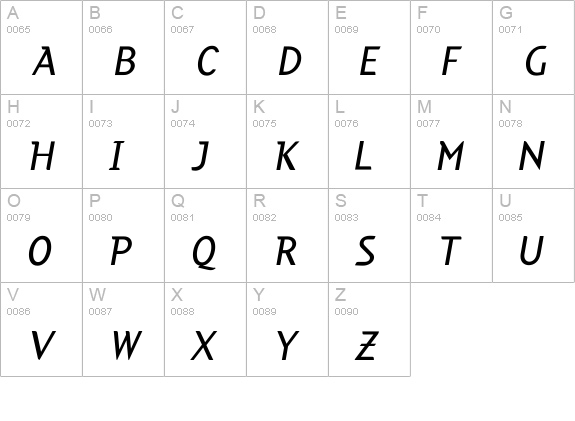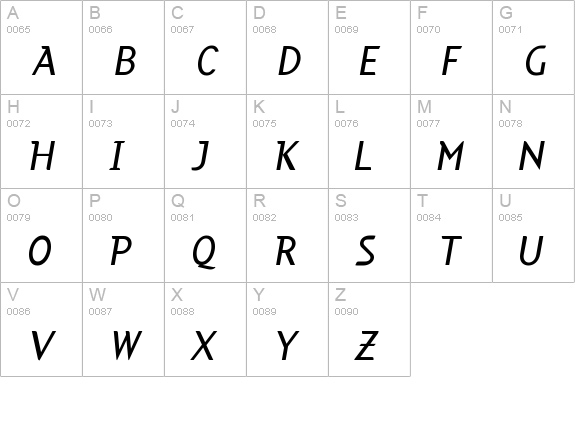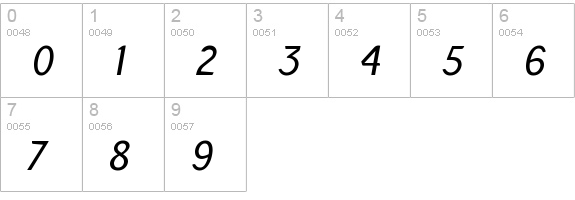
Cuban-LightItalic is a stylish and elegant font that exudes sophistication and charm. Its delicate slant and clean lines add a touch of class to any design project. Perfect for adding a touch of flair to invitations, posters, or branding materials, Cuban-LightItalic is a versatile typeface that will make your text stand out. And the best part? Cuban-LightItalic is available for free download at FontsMarket.com. This means you can access this beautiful font without any cost, making it a great choice for designers on a budget. Don't miss out on the opportunity to enhance your projects with the beauty of Cuban-LightItalic - download it today and elevate your designs to the next level.